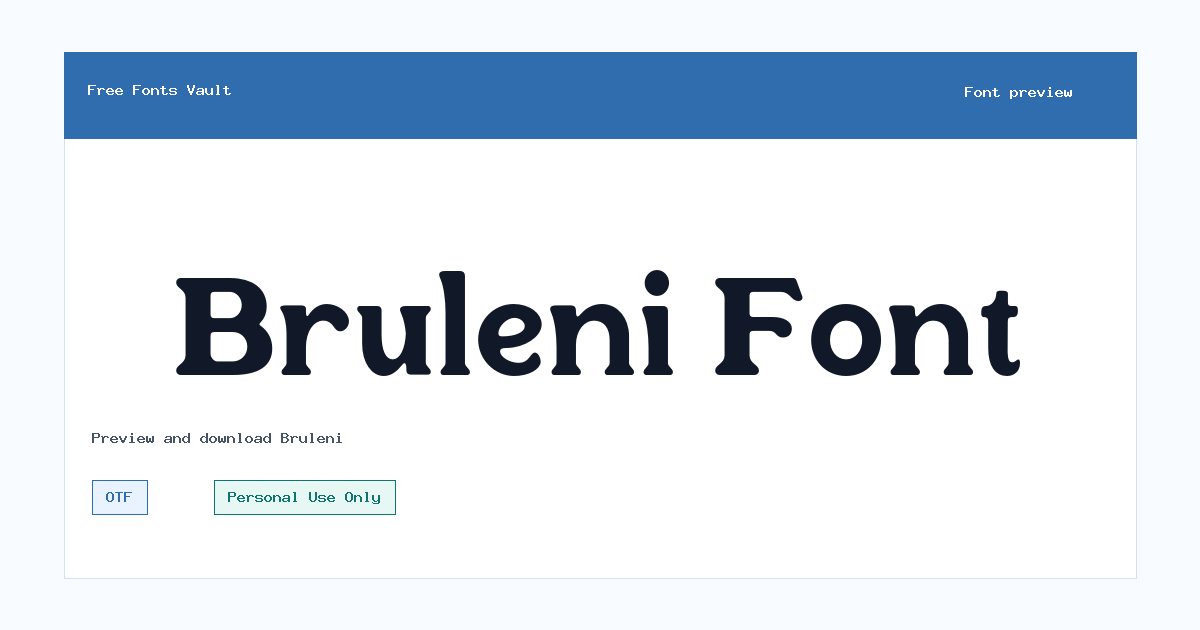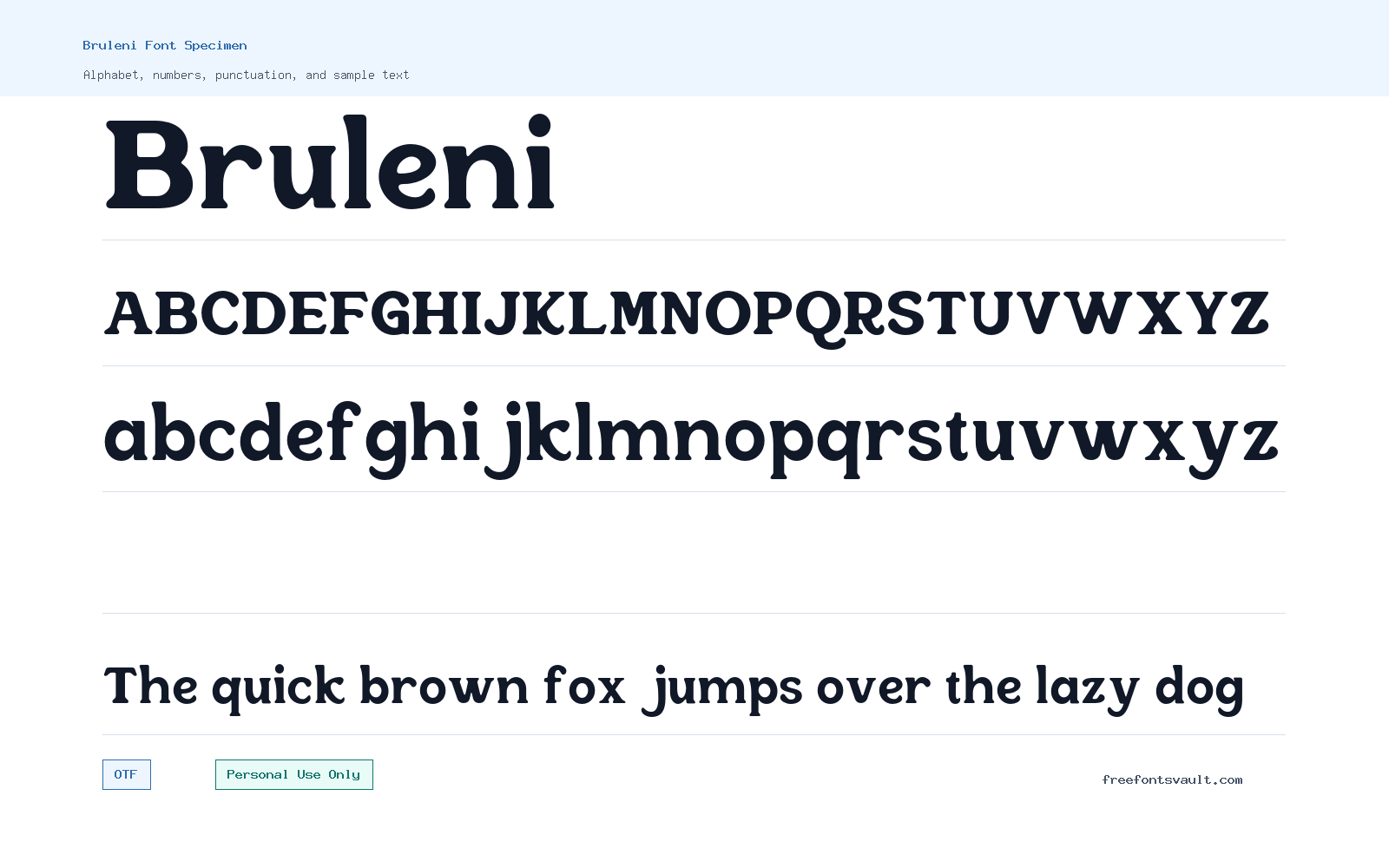
Bruleni
- Designer Say Studio
Bruleni is a serif demo font with a Regular OTF style for visitors who want to test a polished, title-focused typeface before using it in personal artwork.
Bruleni works best as a display serif rather than a long-reading text face. Its value is in short, visible wording: names, headings, invitation lines, packaging-style mockups, social graphics, and editorial title treatments. Use the preview box to look closely at the letters you need, especially uppercase words, punctuation, numbers, and any accented characters. The font file is the Regular style, so the safest way to build contrast is through size, spacing, color, and layout rather than relying on bold or italic family members.
For design work, give Bruleni enough room to breathe. Try it in larger sizes first, then adjust tracking until the word shape feels balanced. It can pair well with a plain sans serif for body copy, captions, menus, or supporting details. If the design needs a softer look, pair it with generous margins and warm neutral colors. If it needs a cleaner layout, keep Bruleni for the main line only and let a simple text font handle the practical information. Avoid setting long paragraphs in it until you have tested readability across desktop and mobile sizes.
- Serif display style suited to short titles, names, and decorative text
- Personal posters, quote graphics, invitations, mood boards, and title artwork
- Logo concept sketches, packaging mockups, social posts, and editorial-style headings
Bruleni is credited to Say Studio.
Who designed Bruleni?
The designer credit listed for Bruleni is Say Studio.
What kind of projects suit Bruleni?
It is best for short display text such as headings, names, invitations, quote graphics, packaging mockups, and personal design experiments.
Should I use Bruleni for paragraphs?
Use caution with long text. Test it at small sizes first, but it will usually be more effective for titles and short lines.